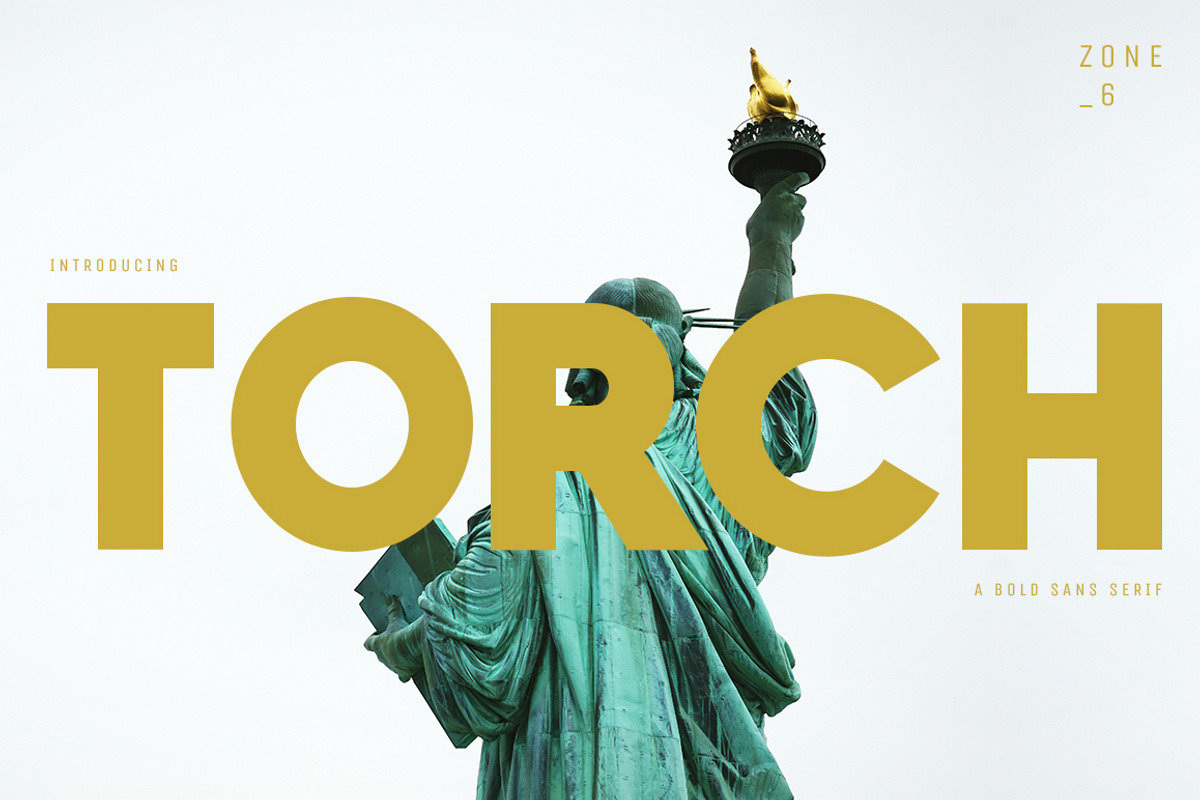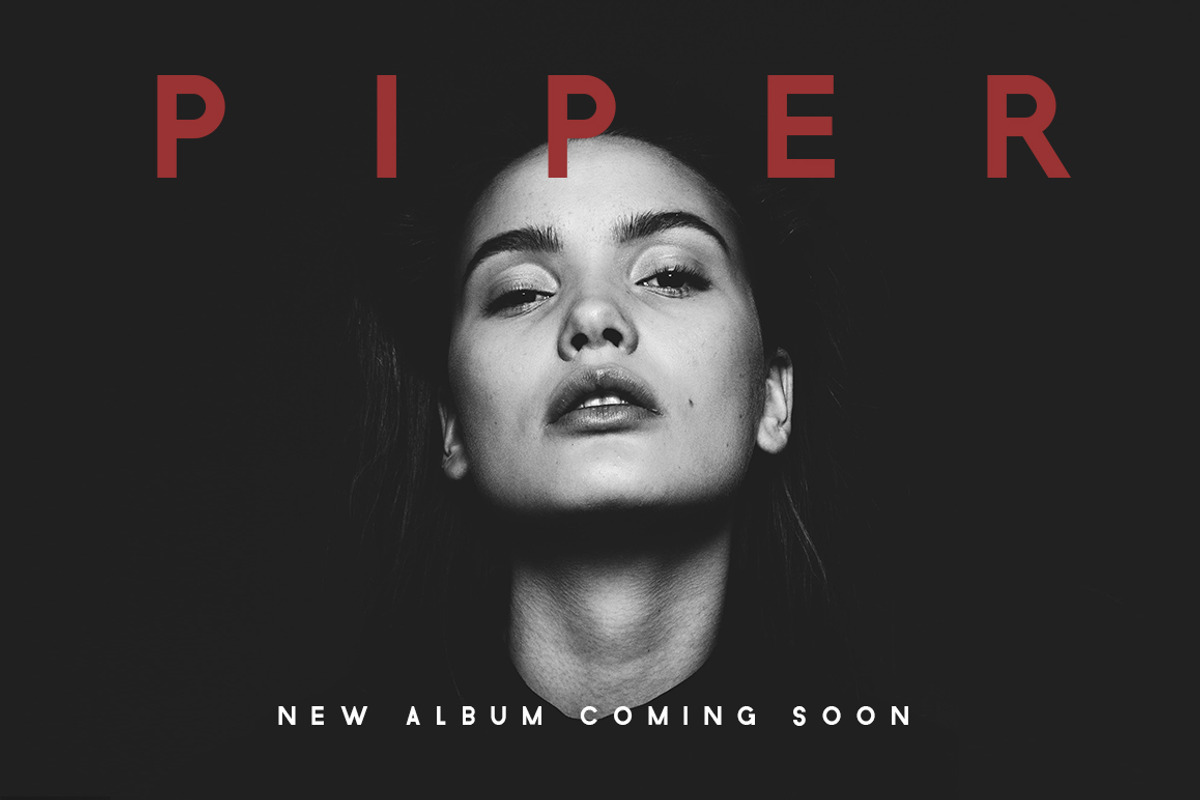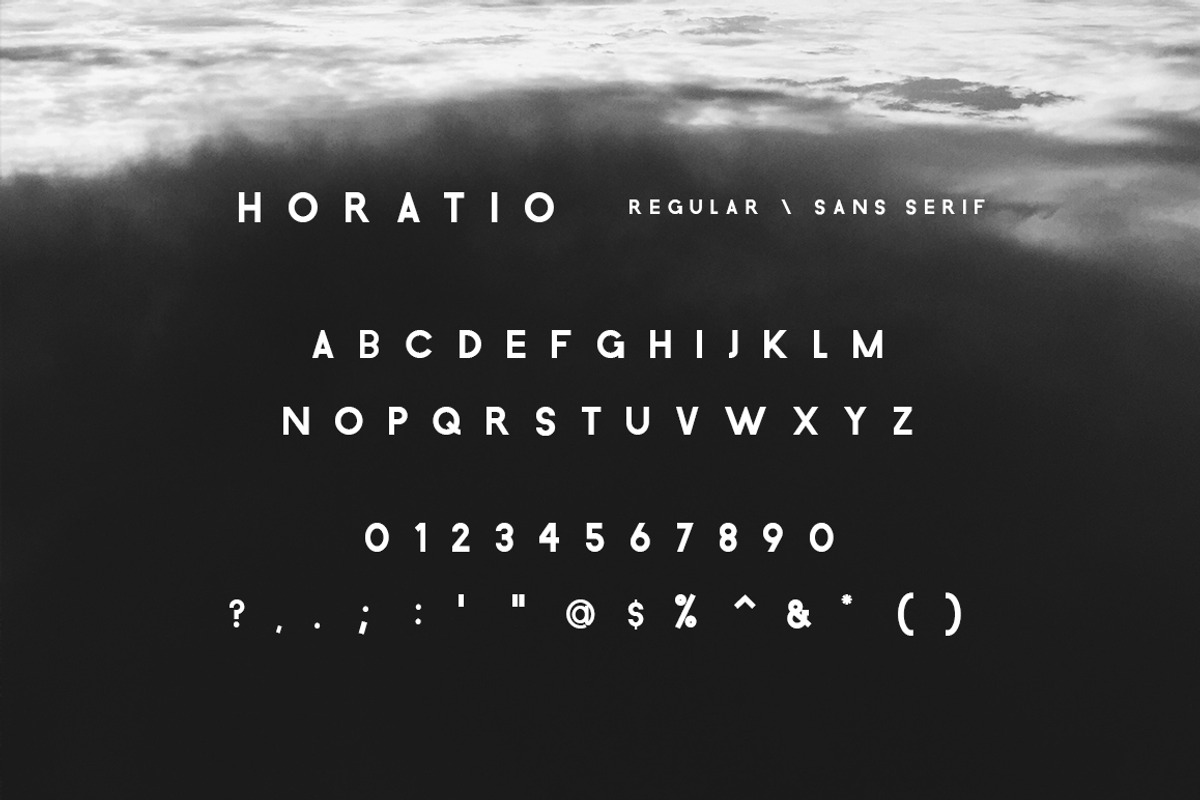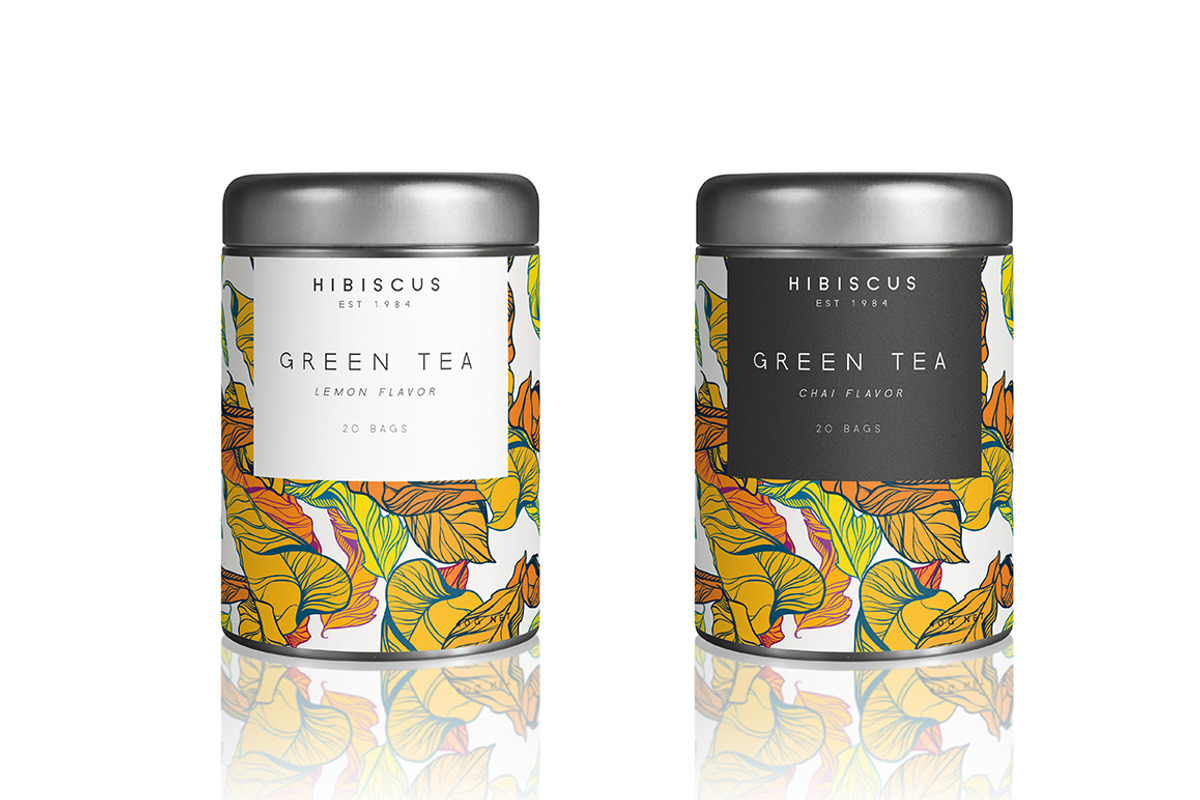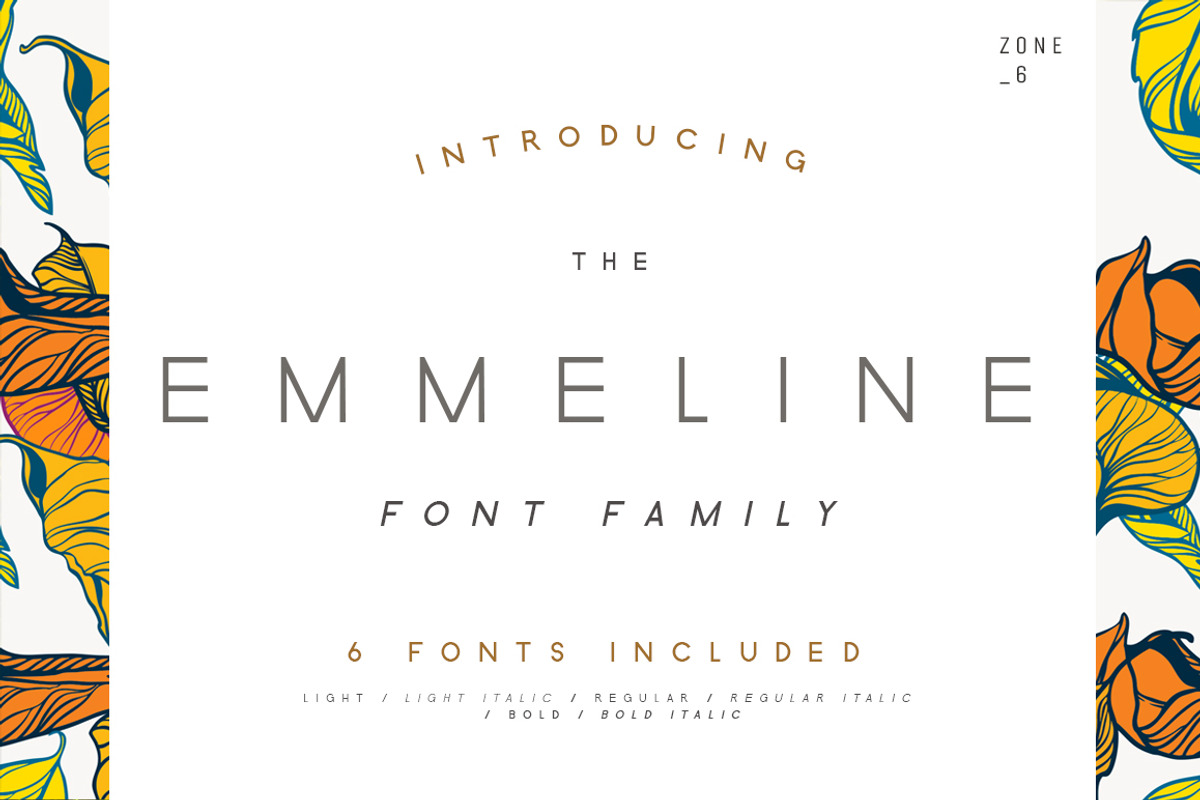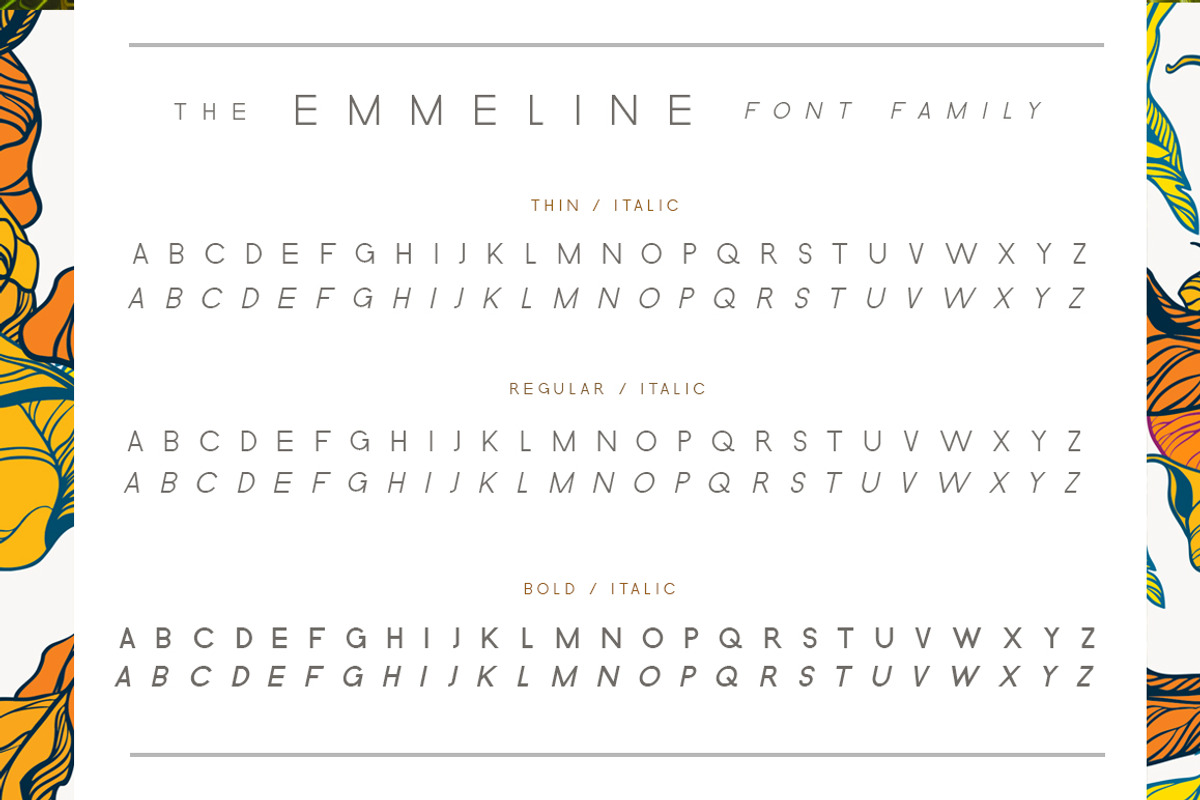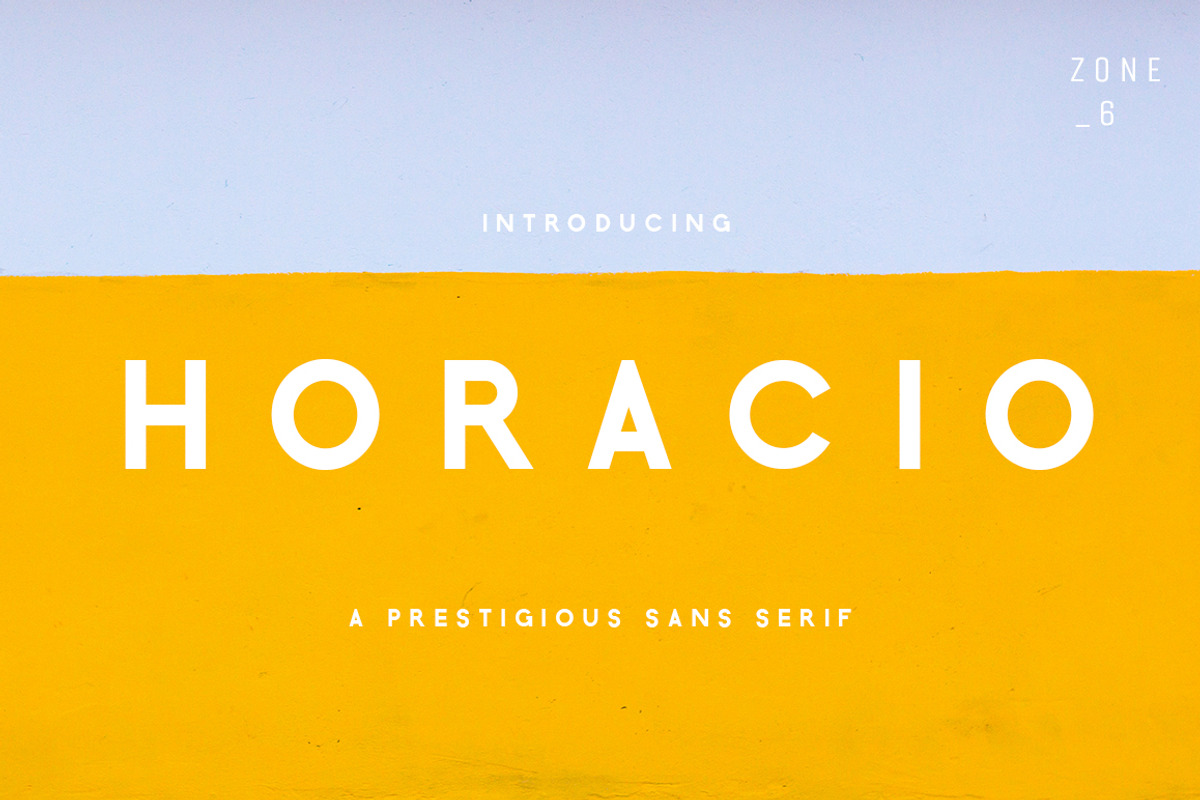
The Elegant Sans Serif Font Bundle
Included are 3 font families - Emmeline, Torch & Horacio. Including multiple weights and italic versions of each sans serif as well as multilingual support.
Each of these fonts work beautifully together to create stunning designs, including branding, print, editorial and more.
Western European characters included Numbers and punctuation included Optimized kerning for aesthetic and highly readable texts
If you’re looking for a sophisticated collection containing everything you need to create luxurious designs then the Elegant Fond Bundle is for you.
The Elegant Sans Serif Font Bundle by Zone 6 fits naturally into Branding, posters, packaging, typography.